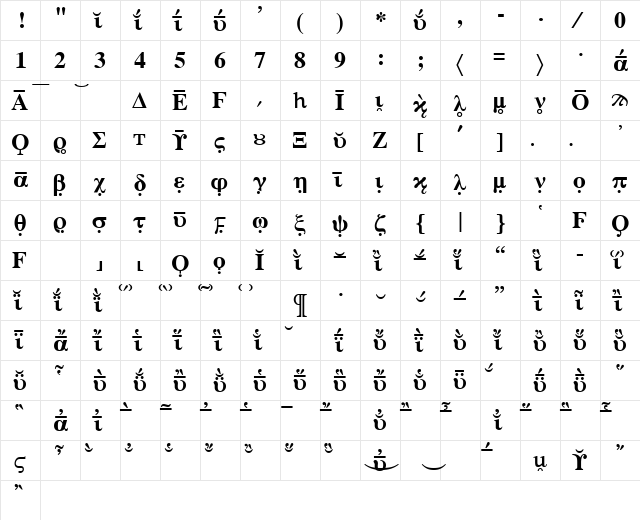
HellenicaExtras Bold
Design Context for HellenicaExtras Typeface
HellenicaExtras is a composed and adaptable typeface that performs quietly and consistently across a wide range of design contexts. The heavy weight commands attention and anchors typographic hierarchies.